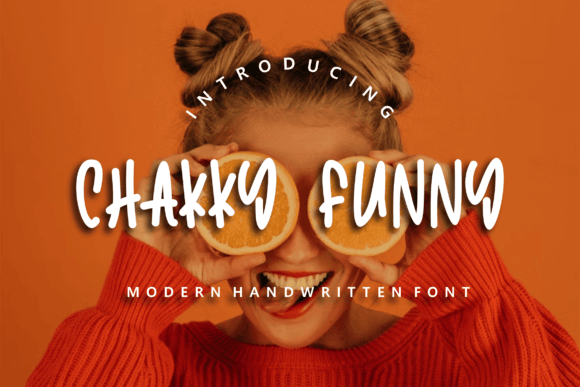
Adding a Dose of Whimsy to Your Designs
Have you ever been brainstorming a new project and suddenly a burst of creativity hits you? You envision the perfect combination of colors, textures, and typography, and you can’t wait to bring it to life. For many designers, this moment is what drives them to create something truly special. But what if you could take that spark of inspiration and turn it into a masterpiece that truly stands out from the crowd?
Enter the Chakky Funny Font – a playful and funky handwritten font designed to add an incredibly joyful touch to your designs. This beautiful font is perfect for adding a dash of whimsy to your projects, making them truly unforgettable. With the Chakky Funny Font, you can elevate your designs and make them truly shine.
Chakky Funny Font Key Features
- Unique Characteristics: Chakky Funny Font features a playful, cartoon-like design with exaggerated letterforms and quirky details, making it perfect for creating humorous and lighthearted content.
Designer Review: Chakky Funny Font
At first glance, Chakky Funny Font seems like a promising addition to any designer’s toolkit. ✨ The quirky, hand-drawn style is sure to bring a smile to the faces of those who use it. ✨
- The font is highly customizable, with a wide range of options for adjusting line height, letter spacing, and other parameters.
- Chakky Funny Font supports a variety of languages, making it a great choice for designers working on multilingual projects.
- The font’s unique style is sure to add a touch of personality to any design, from logos to marketing materials.
- The font’s irregular style can make it difficult to read in certain contexts, particularly in large blocks of text.
- Some characters may appear slightly misaligned or uneven, which can be distracting.
Overall, Chakky Funny Font is a fun and playful addition to any designer’s toolkit. While it may not be suitable for all types of projects, it’s a great choice for designers looking to add some personality to their work. With a bit of care and attention to detail, Chakky Funny Font can be a valuable asset in the right situations.
Chakky Funny Font: A Practical Application Guide
Chakky Funny Font is ideal for creating playful, eye-catching designs. Use it for social media graphics, party invitations, and other fun projects. To get the most out of this font, experiment with different font sizes, colors, and combinations with other fonts.